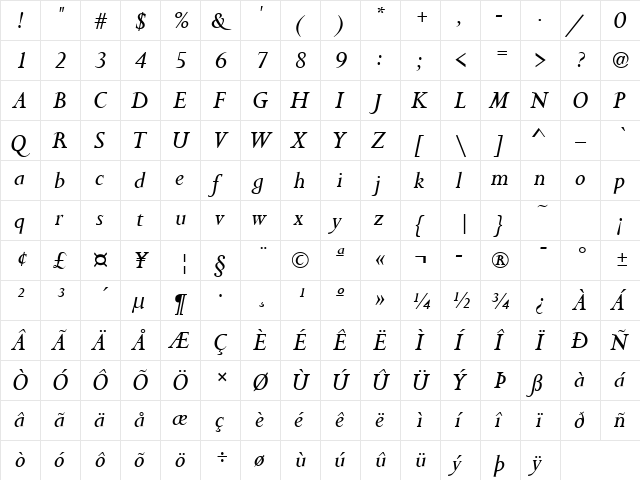
Felicity Italic Font Preview
Felicity Italic
Design Context for Felicity Typeface
Felicity is a composed and adaptable typeface that performs quietly and consistently across a wide range of design contexts. The slanted form adds forward momentum and visual energy.
Pro Tip: Use Felicity for emphasis, pull quotes, and subheadings where its slanted energy can add rhythm to the layout.